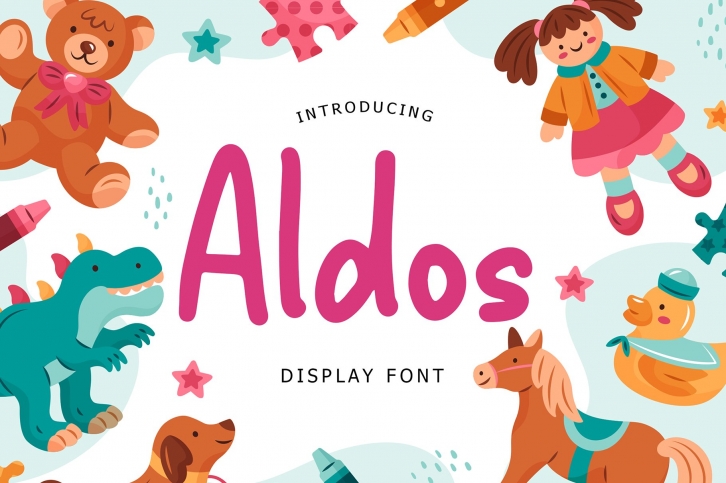
Aldos Display is a great font that was designed by Formatika Studio. Imagine the amount of combinations you can create using this font! The archive is 20.70 MB and it was released on August 17, 2020. Aldos Display looks beautiful on wedding invitations, greeting cards, logos, posters, labels, t-shirt designs, logos, business cards and is perfect for use in ink or watercolor works, fashion, magazines, packaging and food menus, children's books and more!